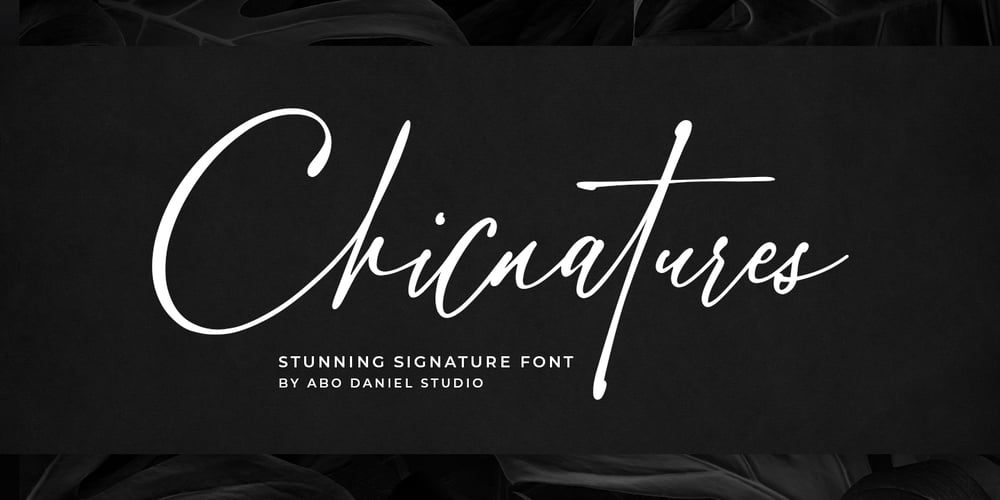
Chicnatures Font Family was designed by Abo Daniel and published by Abo Daniel. Chicnatures contains 1 styles and family package options. introducingCHICNATURES- stunning signature font -A classy and naturally beautiful typeface!CHICNATURES is perfect for branding, logotype, photography, invitations, quotes, watermarks, advertisements, cards, product designs, labels, social media, and much more!Chicnatures is completed with hundreds of ligatures to make it look so natural and easy to use. (you can see on presentation pictures)Features:- Uppercase- Lowercase- Number & Punctuations- Ligatures- Multilingual Support- Swash- PUA encodedI hope you love it.regards,Abo Daniel Studio